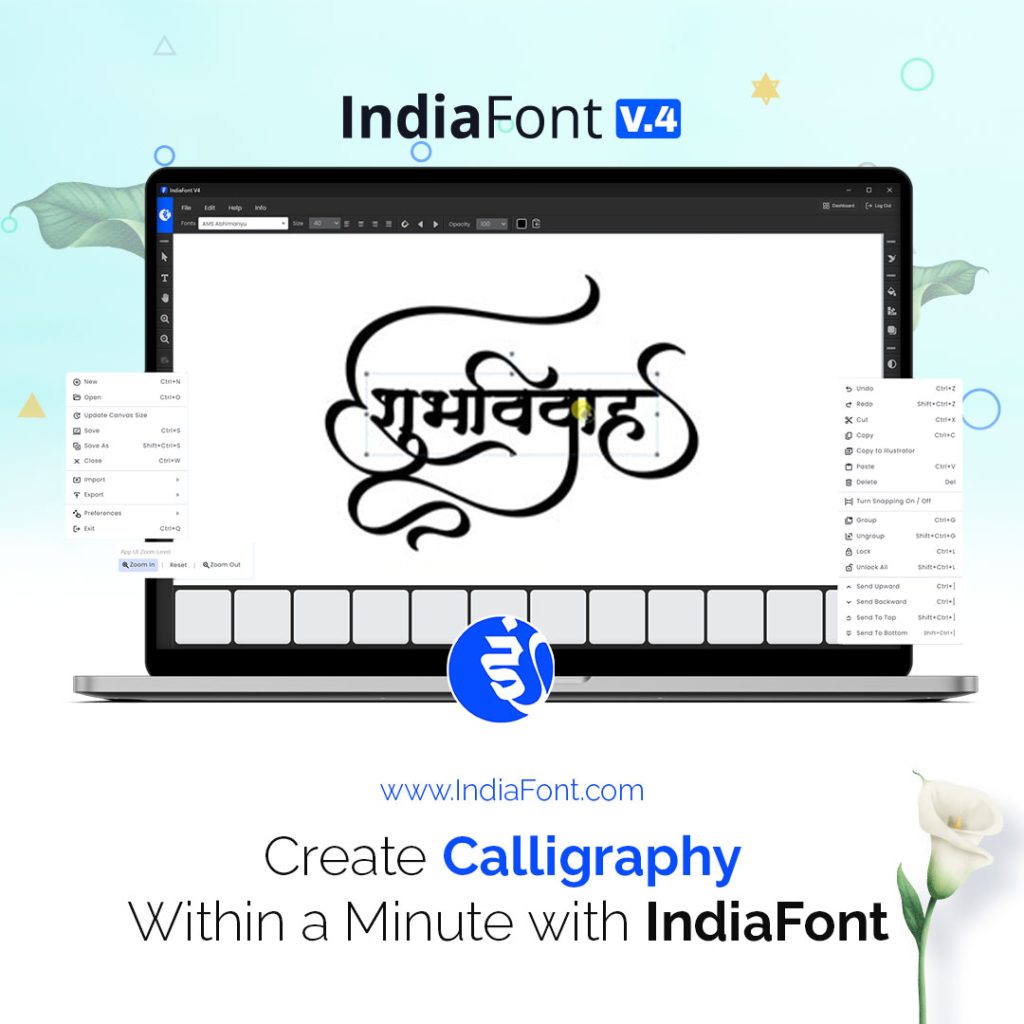
IndiaFont is a visionary project developed by ArtoMania Studio Pvt Ltd, founded in 2016. We take immense pride in being the pioneers in introducing TTF Fonts for Hindi and Marathi languages, specifically designed for calligraphy enthusiasts. Before IndiaFont, finding calligraphy fonts for Indian languages seemed like an impossible task. However, our relentless dedication led us to create a revolutionary platform that changed the landscape of calligraphy in India.
From the very beginning, our mission was clear – to fill the void in the calligraphy world by offering a wide range of fonts for Hindi and Marathi languages. Witnessing the overwhelming love and support from all over India, we were inspired to take IndiaFont to the next level. In a groundbreaking move, we launched IndiaFont V1 – a calligraphy font software catering to Indian languages, including Hindi, Marathi, Gujarati, and English.
IndiaFont V1 introduced a unique concept of “Variables,” offering users the freedom to customize their calligraphy artworks with up to 12 design options for a single letter. This feature allowed designers to create truly personalized calligraphy that blended seamlessly with their artistic visions.
Over the years, we have continued to enhance IndiaFont, now evolving to IndiaFont V3 – the epitome of calligraphy excellence. Our commitment to delivering top-notch features and innovative tools has resulted in a font collection and software that empowers designers like never before.
Key Features of IndiaFont:
Diverse Range of Fonts: IndiaFont V3 offers an extensive collection of calligraphy fonts for Hindi, Marathi, Gujarati, and English languages, each carefully crafted to preserve the essence of traditional calligraphy while embracing modern aesthetics.
Letter Variables: Experience unmatched customization with up to 12 design variables for a single letter. Our thoughtful categorization of variables ensures smooth integration of calligraphic swooshes and extensions, maintaining the integrity of the artwork.
Unique Kana Design: We have gone a step further by providing 50+ design variables exclusively for “Kana” or “Aa ki Matra” in Devanagari. These creative swooshes, swords, flutes, and more, add a touch of exclusivity to your Hindi and Marathi calligraphy.
Alom-Wilom: Enhance the start and end points of your text with calligraphic swooshes or clip art, elevating the overall appeal of your design.
Comprehensive Design Tools: Beyond calligraphy, IndiaFont V3 equips you with a wide range of basic and advanced graphic design tools, enabling you to create captivating artworks effortlessly.
IndiaFont Typing Method:
We understand the value of simplicity and efficiency in the creative process. IndiaFont V3 introduces an easy-to-use, non-Unicode based typing method, using phonetic-based typing for Hindi and Marathi languages. Simply type in English, and IndiaFont intelligently converts it into the corresponding Hindi or Marathi letter, eliminating the need for additional typing skills.